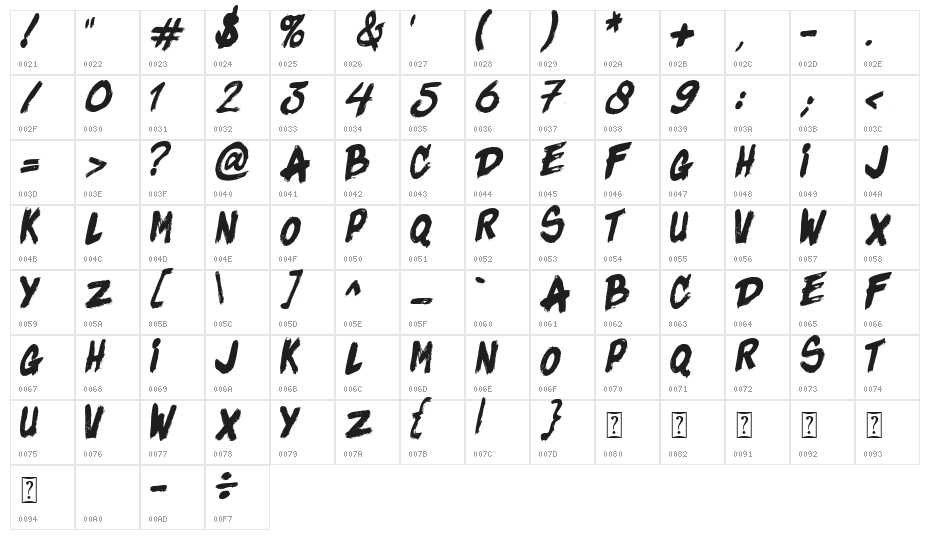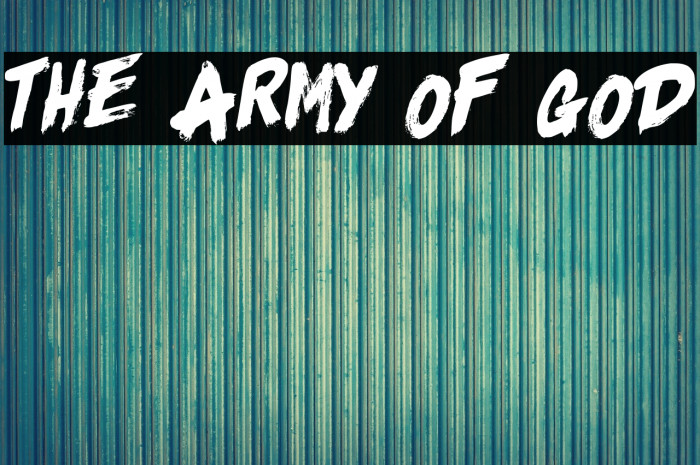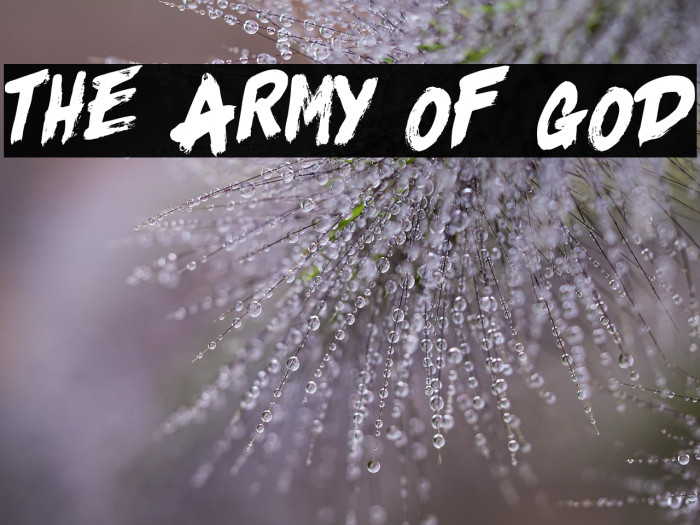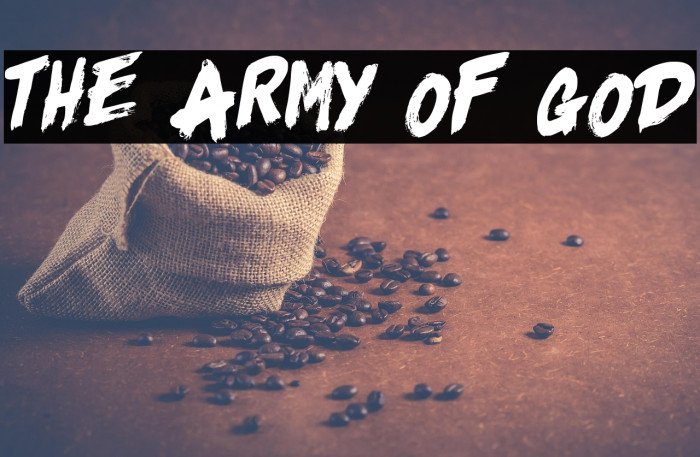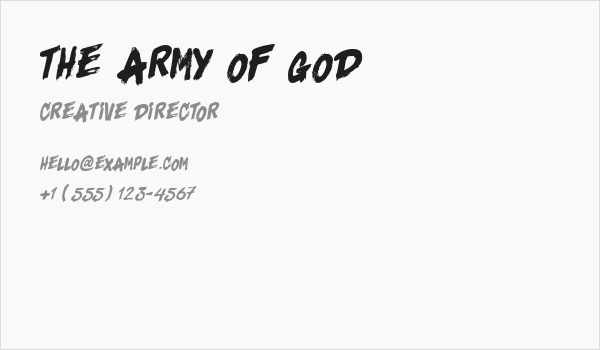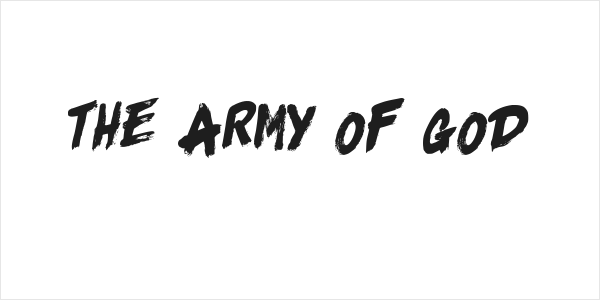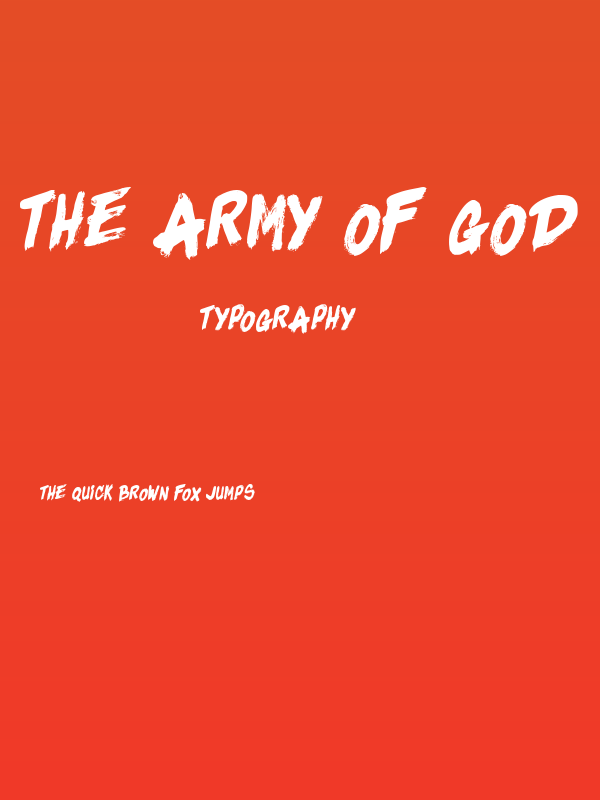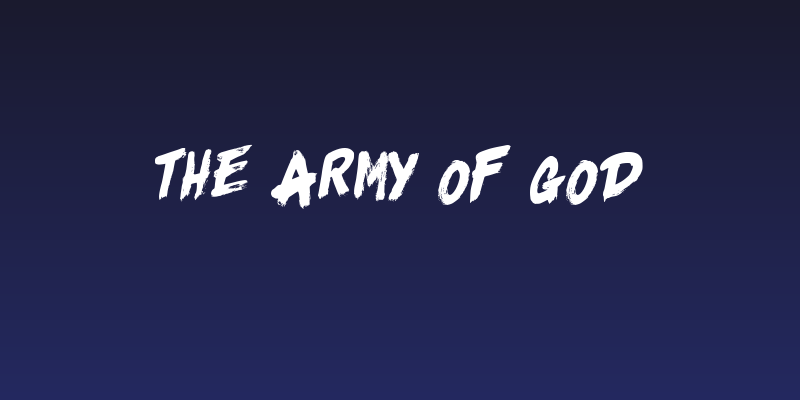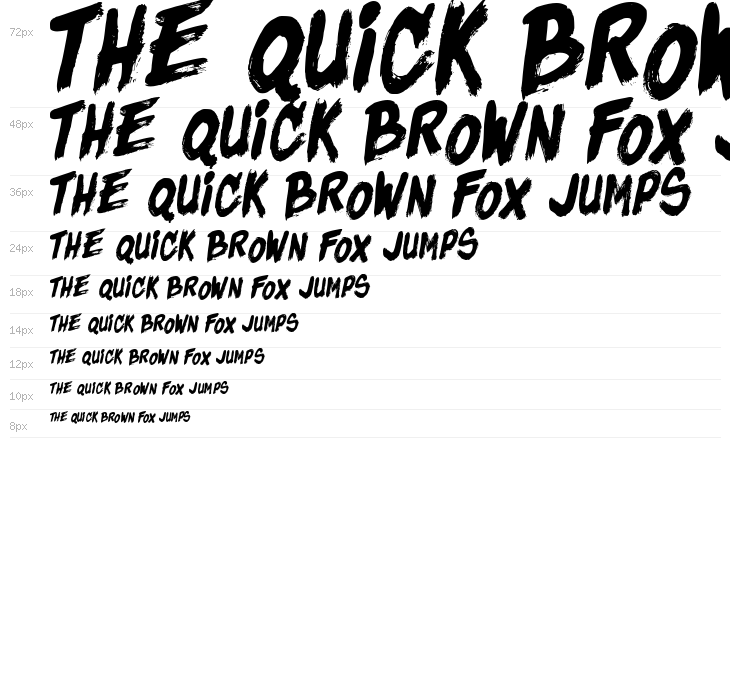
The Army Of God Font
The Army Of God Description
This font features a bold, brushstroke style that exudes energy and dynamism. The characters are crafted with a rough, textured appearance, giving them a hand-painted feel. The uppercase and lowercase letters maintain a consistent style, with thick strokes and slightly irregular edges that add to the font's expressive nature. The numbers and special characters follow the same design, ensuring a cohesive look across all elements. This font is perfect for projects that require a bold and artistic touch, such as posters, album covers, or branding materials that aim to capture attention and convey a sense of creativity.
| Proposed Projects | Ideal for posters, album covers, branding materials, and any project needing a bold, artistic touch. |